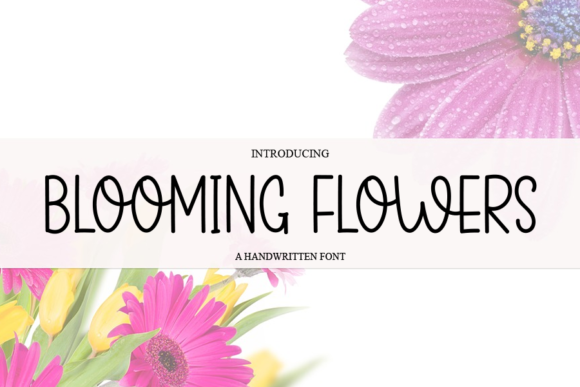
About Blooming Flowers Font
Blooming Flowers is a cute and delicate lettered handwritten font that can be used for all chalkboard quotes or teaching material! Its authentic look will add a personal and realistic feel to your designs.